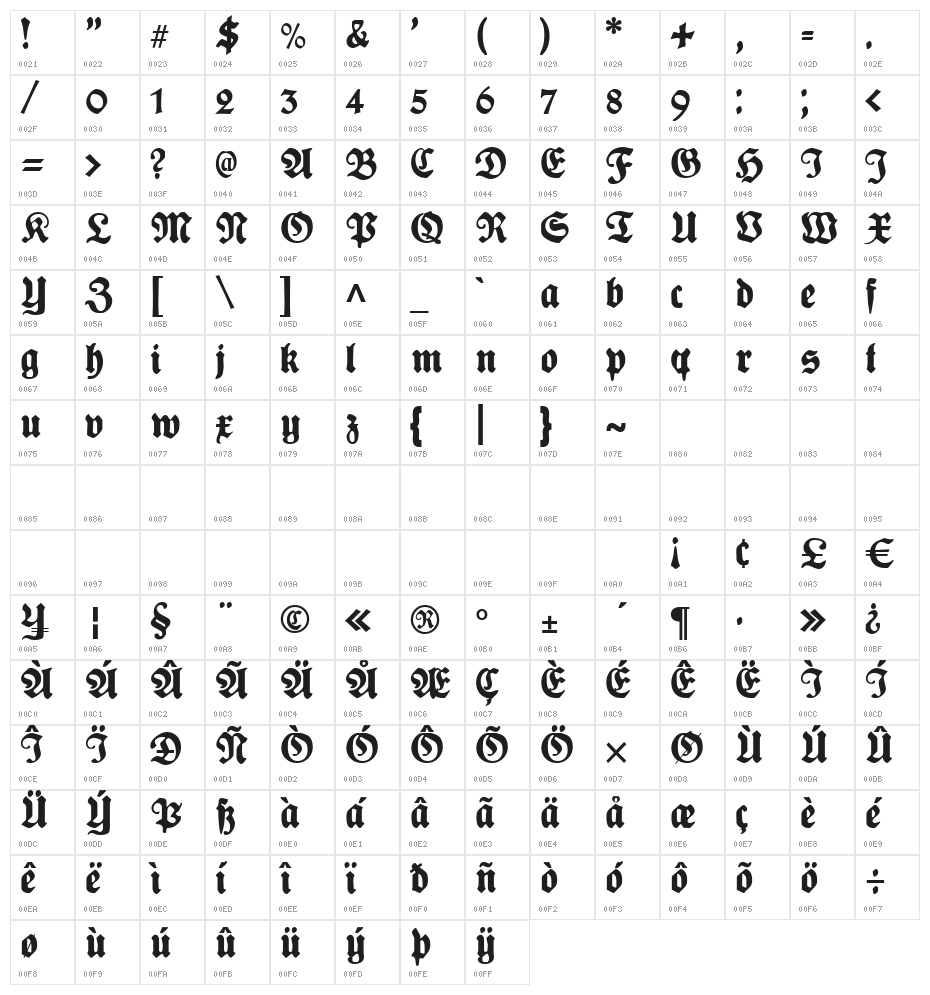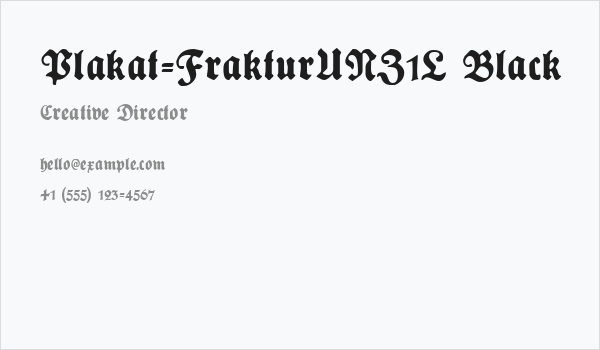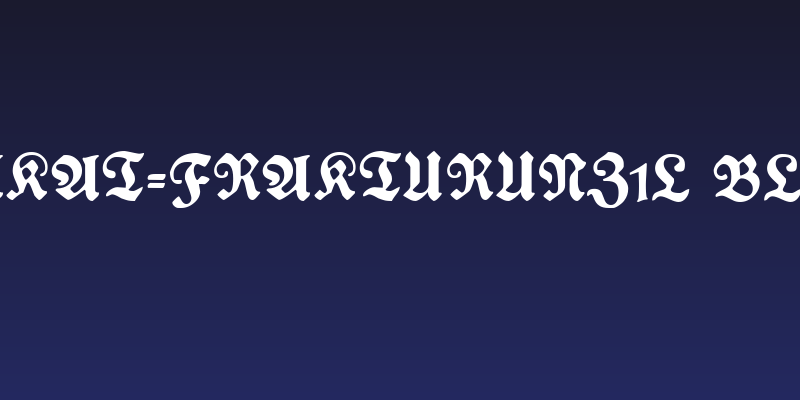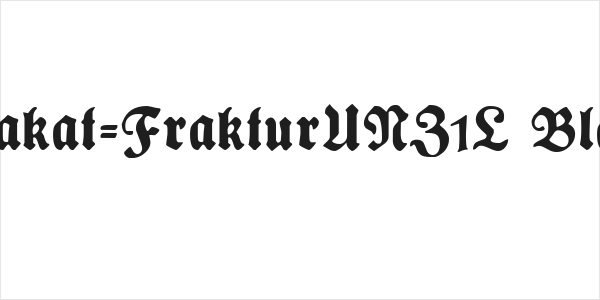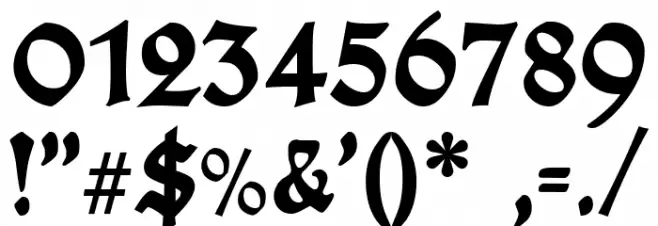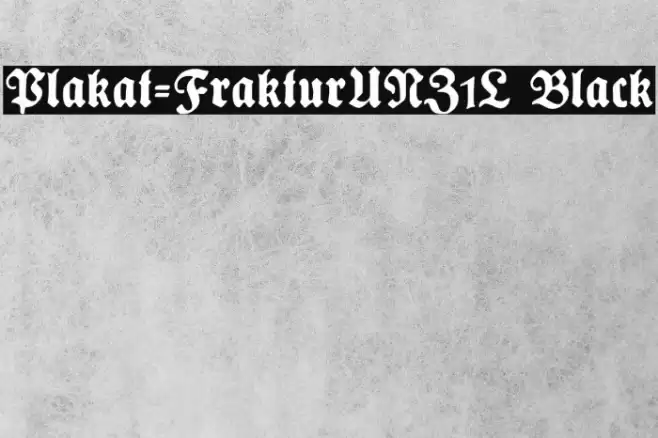
Plakat-FrakturUNZ1L Black Font
Plakat-FrakturUNZ1L Black Description
This font features a bold and dramatic style, reminiscent of traditional Blackletter typefaces. The characters are ornate with sharp, angular lines and intricate detailing, giving it a historic and authoritative appearance. The uppercase letters are particularly striking, with elaborate flourishes and a strong presence. The lowercase letters maintain the same level of detail, ensuring consistency throughout the typeface. Numbers and special characters are designed to match the overall aesthetic, making this font suitable for projects that require a touch of elegance and tradition. Its bold weight and high contrast between thick and thin strokes enhance its readability while maintaining its decorative appeal.